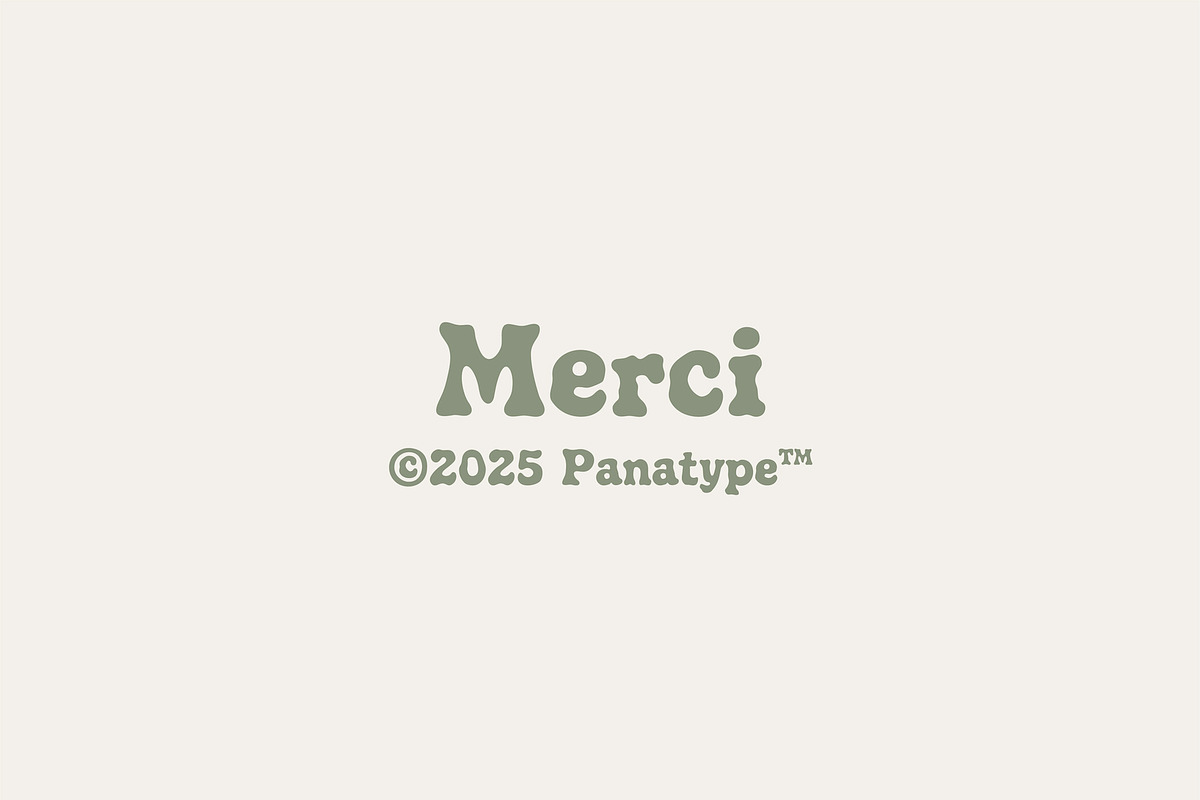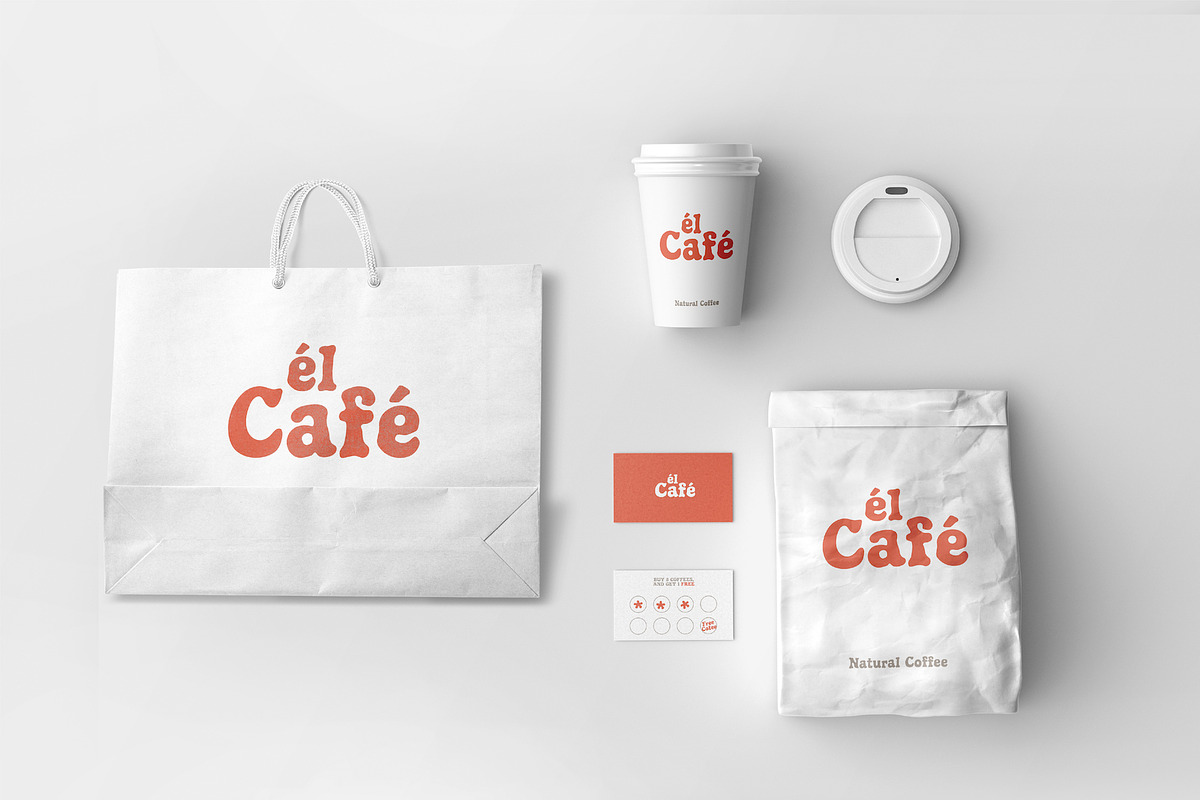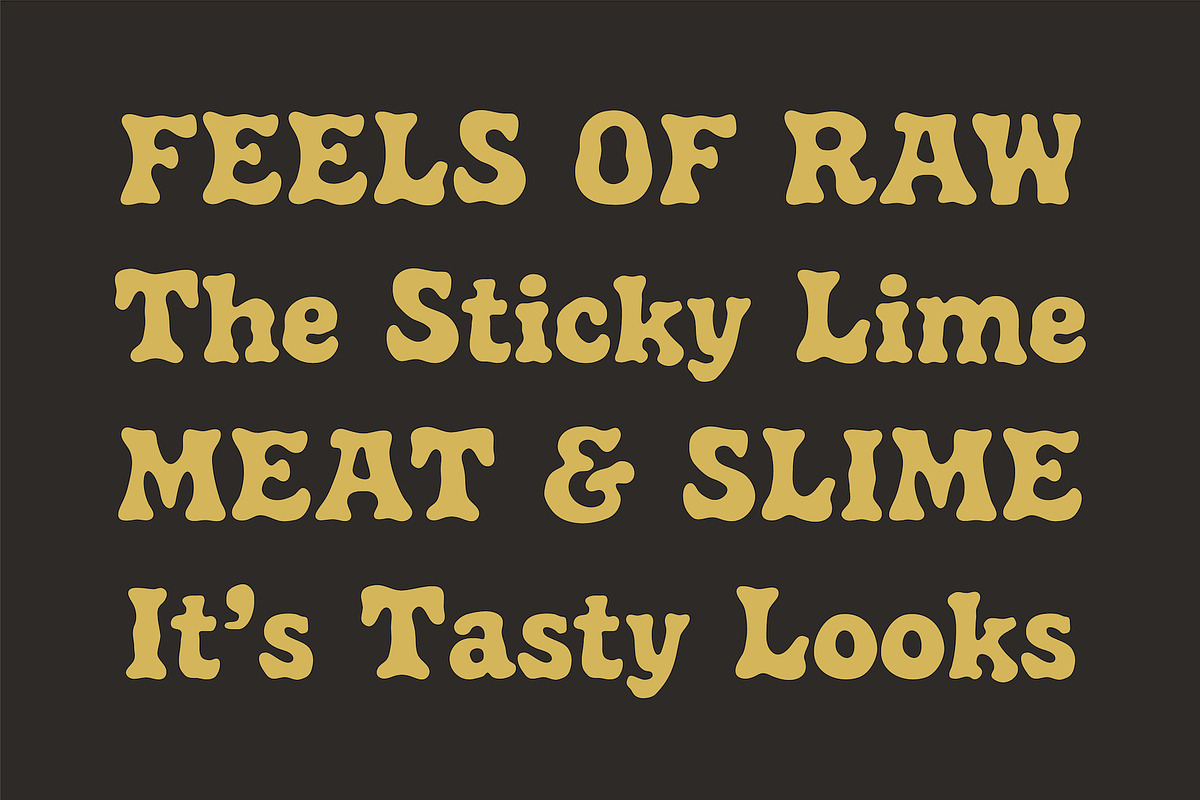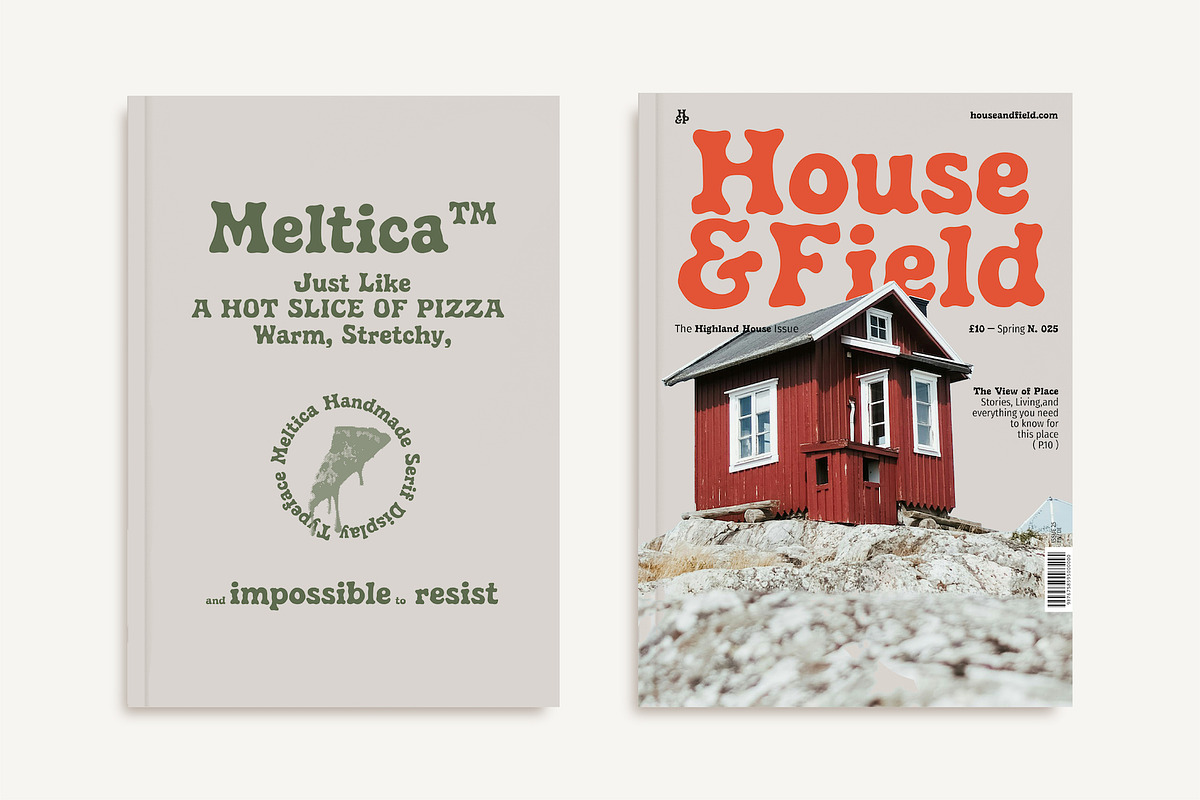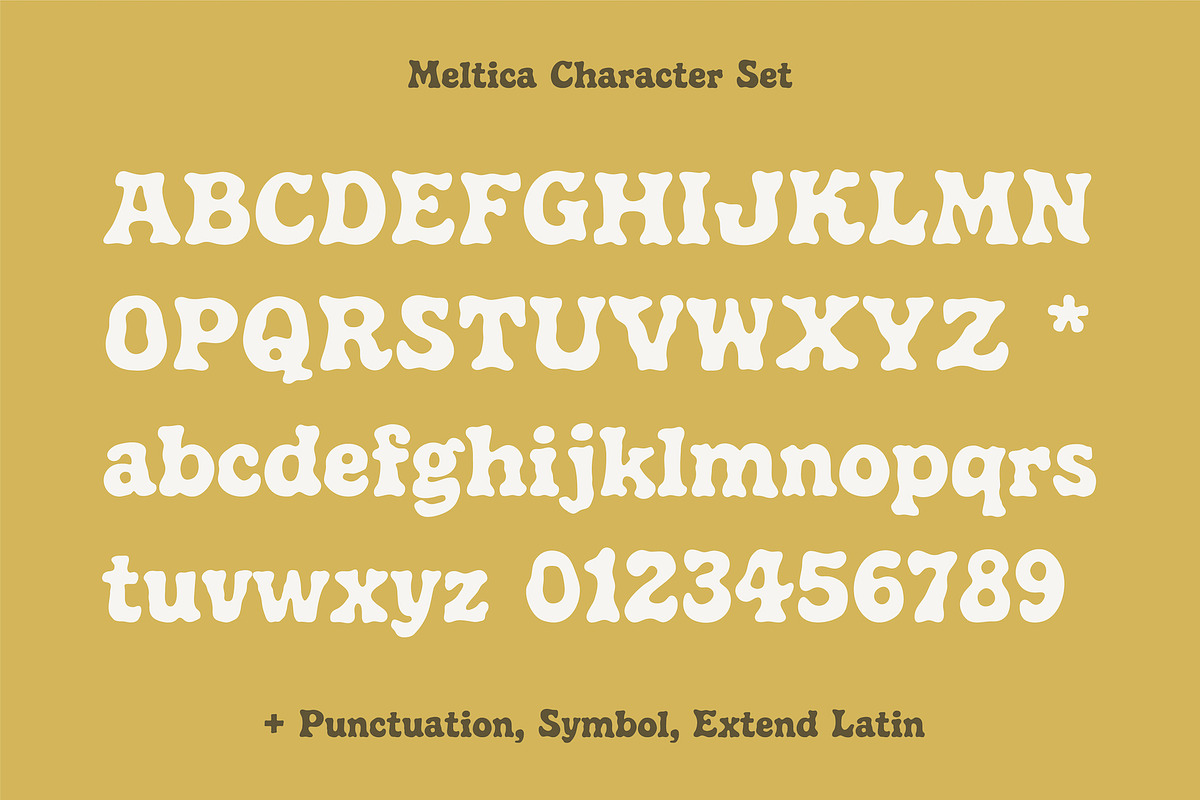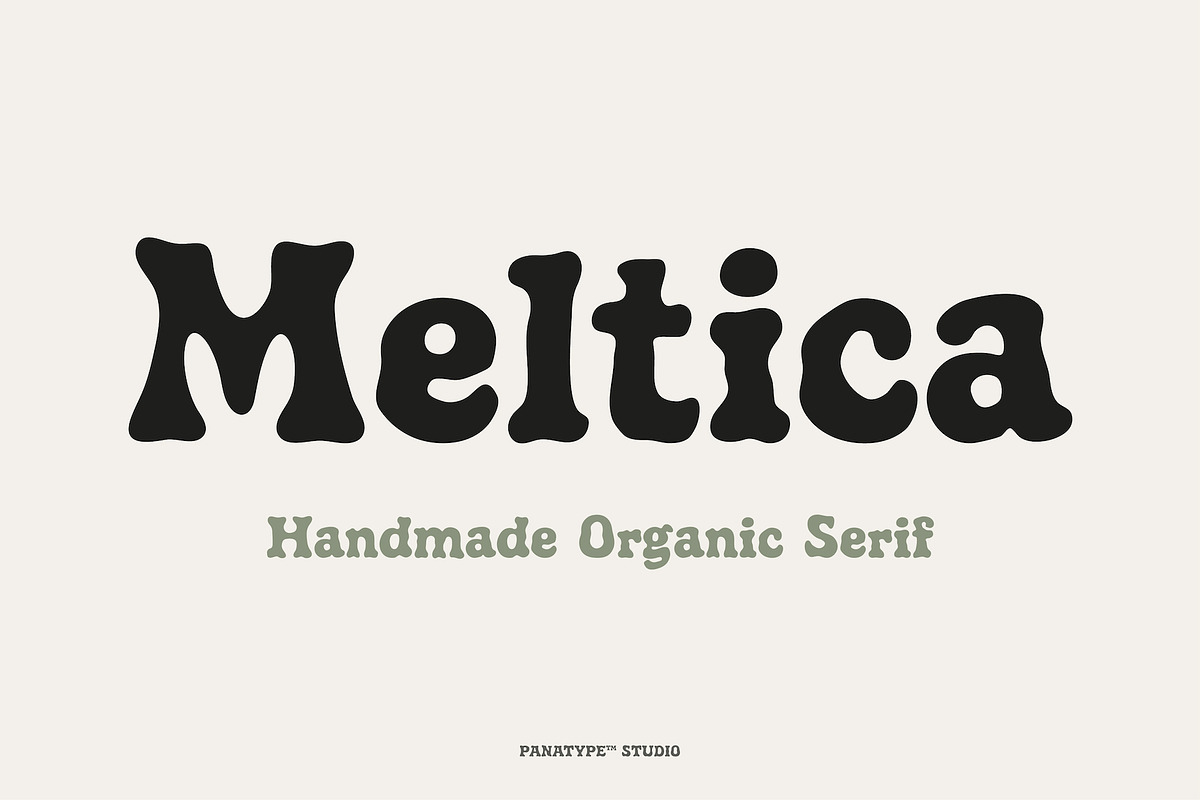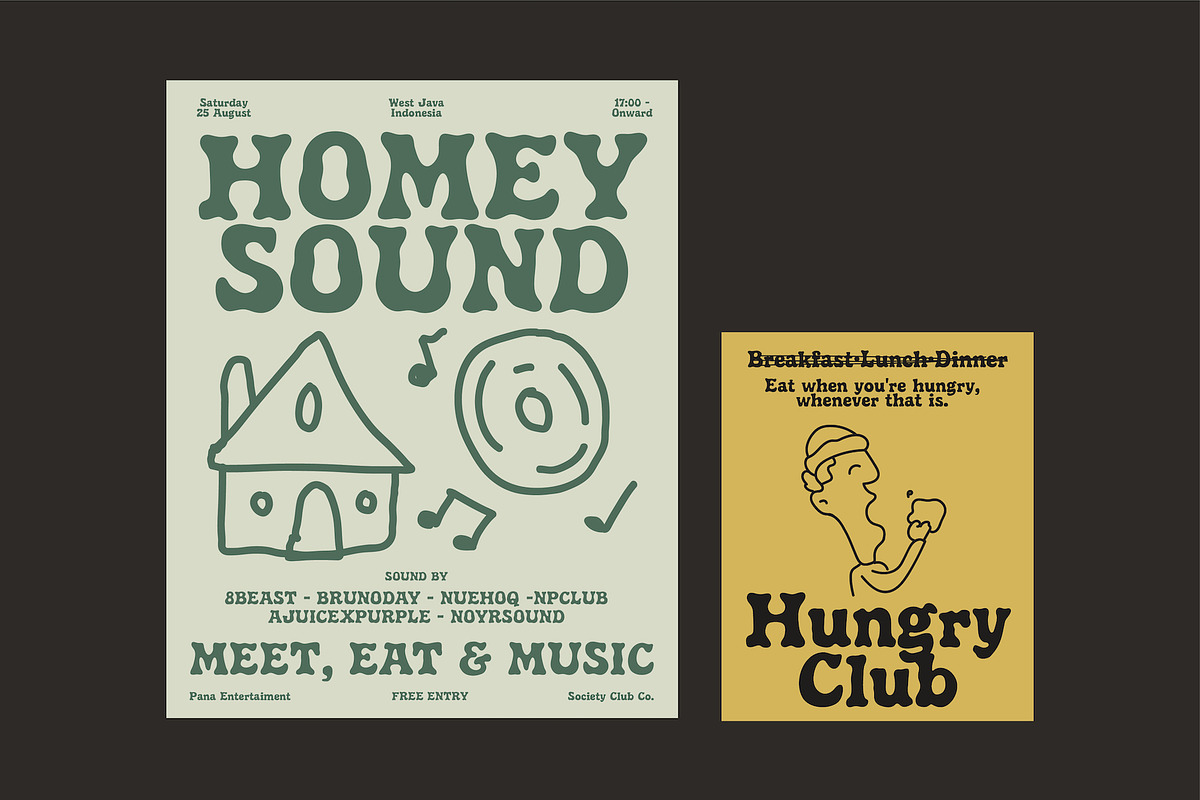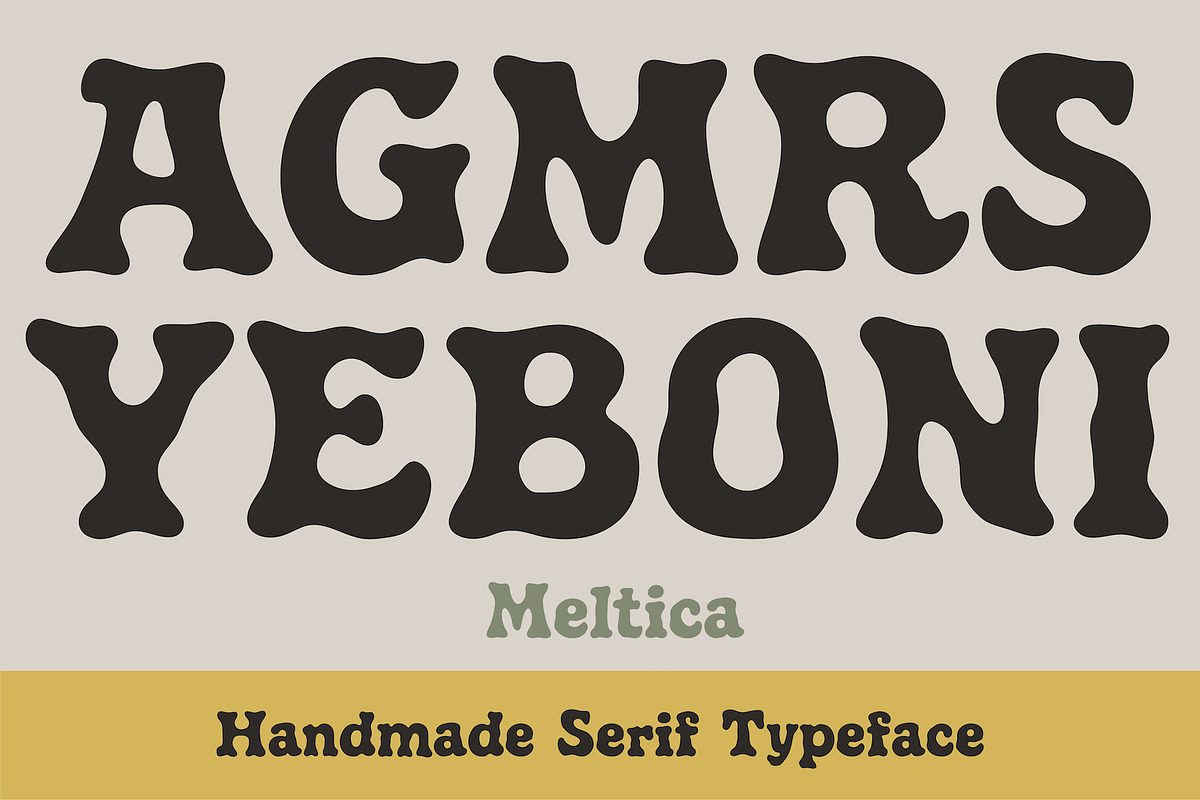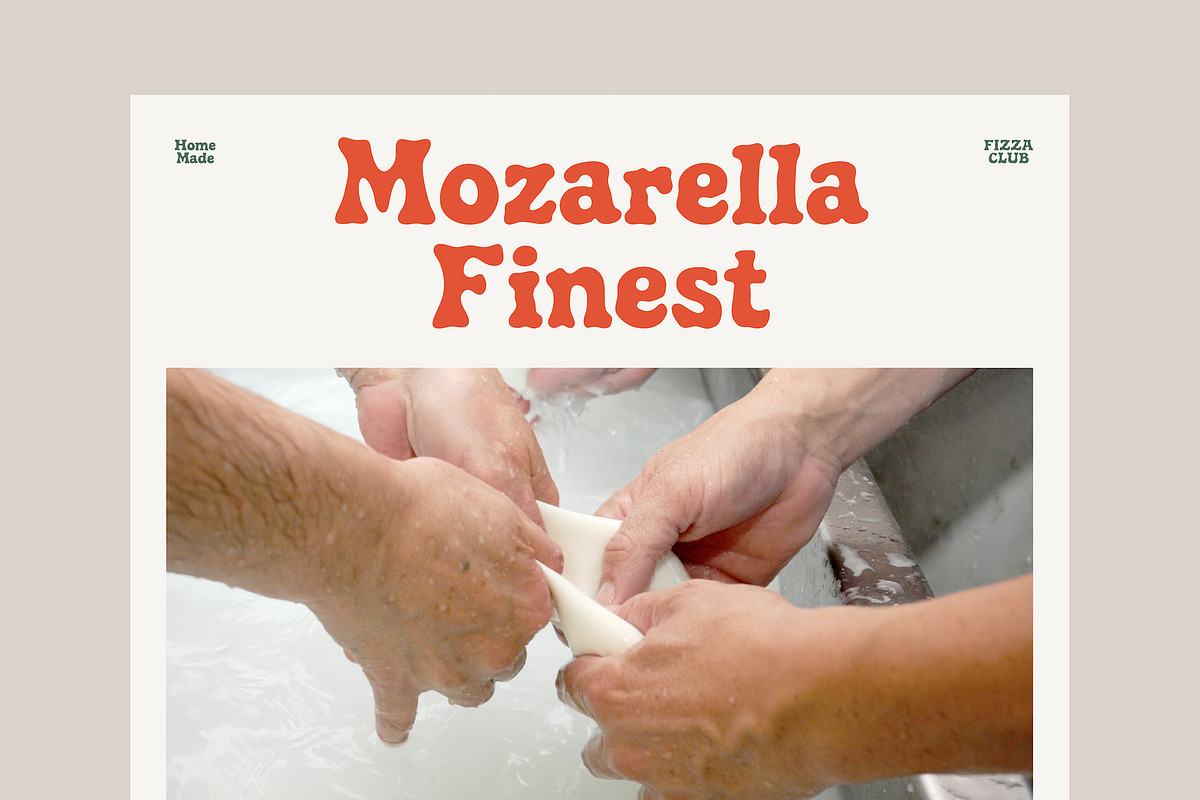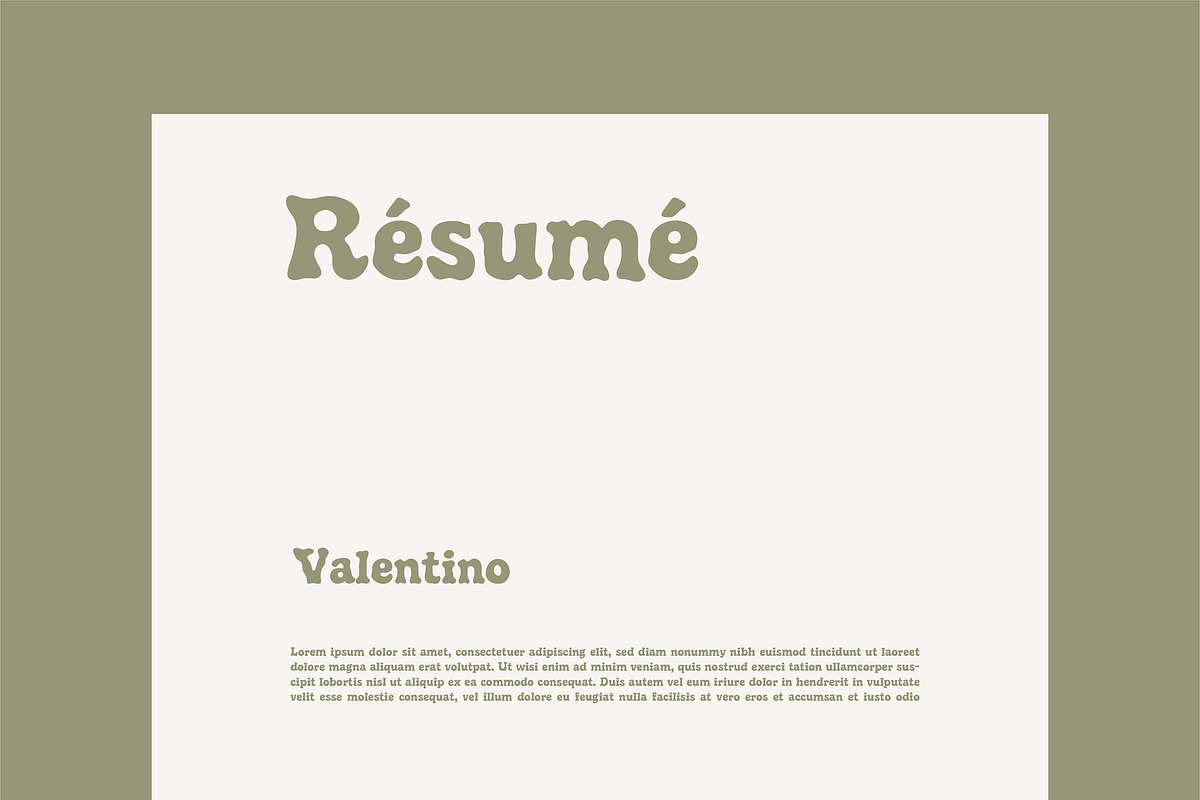
Meltica - Handmade Organic Serif
Meltica – Handmade Organic Serif Typeface
Meltica is a handmade organic serif typeface with warm, stretchy letterforms—perfect for posters, packaging, editorial, and artisanal branding.
Meltica is a handmade organic serif typeface designed to capture raw, warm, and imperfect beauty. Inspired by artisanal culture, food packaging, editorial layouts, and vintage posters, Meltica brings a human touch to modern design.
This font works perfectly for branding projects, packaging design, posters, album covers, editorial layouts, logos, café branding, and creative headlines. Its organic shapes and playful rhythm make Meltica ideal for designers who want a handmade yet timeless serif font.
Meltica includes uppercase and lowercase letters, numerals, punctuation, symbols, and extended Latin support, making it suitable for both display and short text applications.
Whether you're working on a modern brand or a nostalgic visual concept, Meltica offers a versatile organic serif style that stays relevant across trends.
🔥 Font Features:
- Uppercase & lowercase handmade serif characters
- Drippy, playful shapes with a soft edge texture
- Numbers, symbols, and basic punctuation
- Extended Latin support for multilingual design
✨ Perfect For:
- Food; snack branding (cheese, butter, desserts)
- Music: Poster, Flyer Event
- Kids’ packaging & playful editorial titles
- Poster designs, apparel, and sticker graphics
- Café menus, organic product labels, and retro signage
- Social media content with personality
Let your typography ooze with character — Meltica is the handmade serif that’s fun, flavorful, and impossible to forget 🍞🧀✨